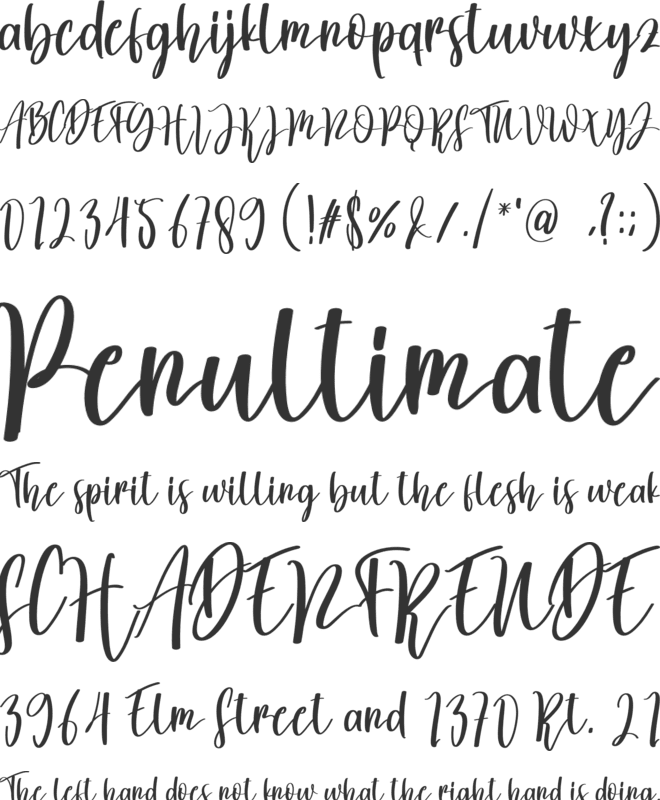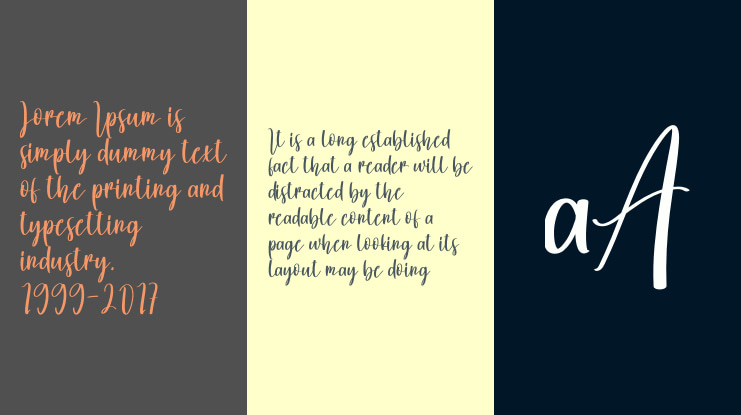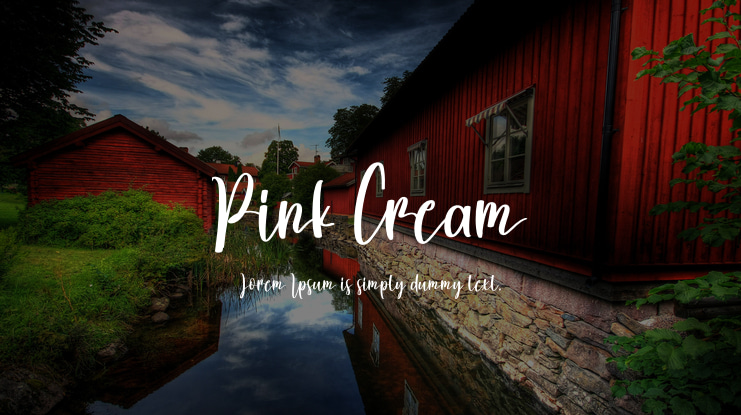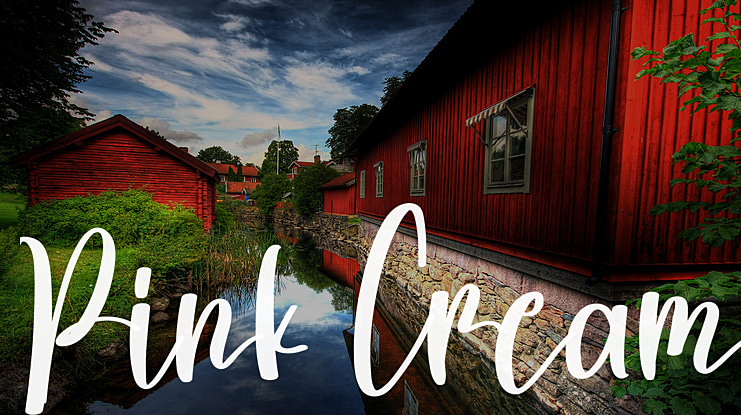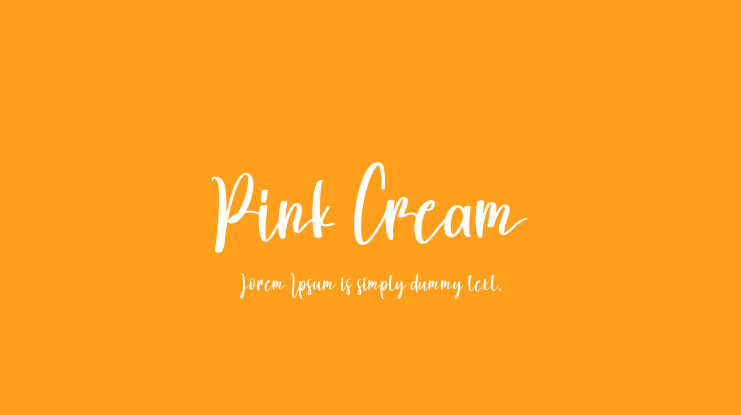
Pink Cream Font
DETAILSspecial creative products for you, our products will give you an extraordinary experience.the latest style letters are perfect for wall displays, wedding invitations, social media post logos, advertisements, product packaging, product designs, labels, photography, watermarks, invitations, stationery, and any project that requires taste handwriting.Links for license and contact:================================================== =========https://scratchones.com/product/pink-cream/gmail : ================================================== =========ATTENTION:WARNING!!!By installing or using this font, you agree to the Product Use Agreement:- This font has a FULL VERSION and is ONLY for PERSONAL USE. NO COMMERCIAL USE!- If you need CUSTOM PERMIT or COMPANY PERMIT please go to : (www.scratchones.com)- Any donations are greatly appreciated. Paypal account for donations: (paypal.me/scratchones)USE OF COMMERCIAL FONT WITHOUT PURCHASE OF LICENSEOFFICIAL www.scratchones.com will be fined 8X THE MINIMUM LICENSE FEES FROM THE LICENSE PRICE !!!!thanks.
Pink Cream font preview